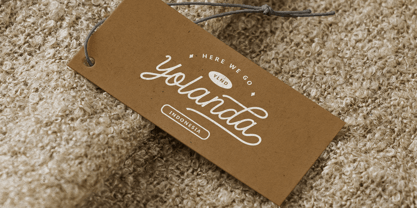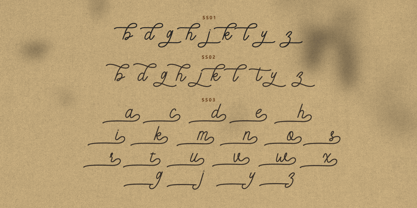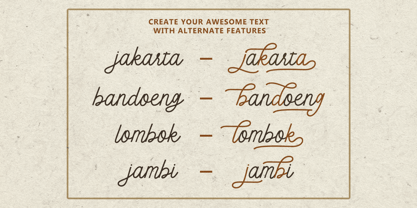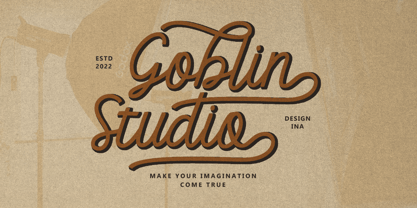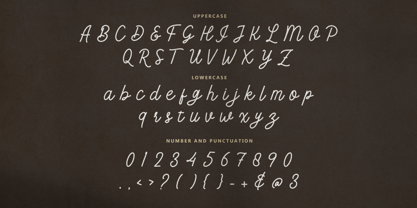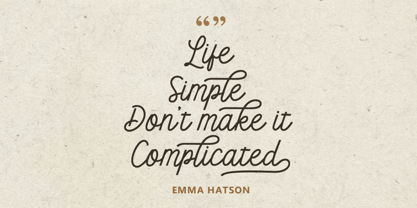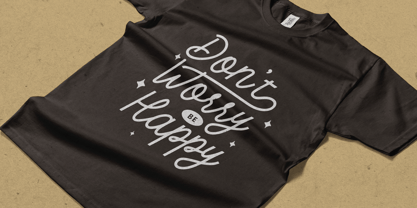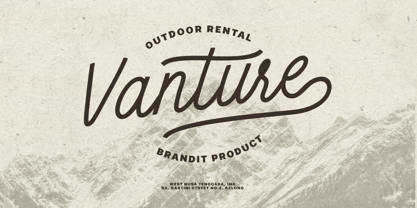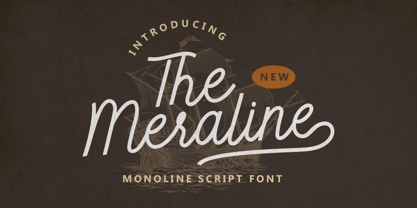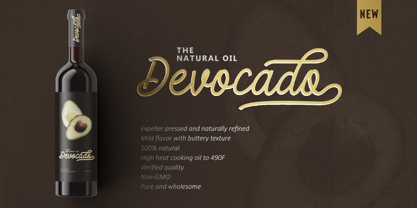
Meraline
The Meraline Font Family was designed by Sarid Ezra, Dzikrul Aulia and published by Bale Type. Meraline contains 1 styles. More about this family
Meraline is a monoline script that contains uppercase lowercase and also alternates each characters that will make your design more attractive and stunning. With hand lettering and outdoor feels, you can use this font for any purpose especially logotype. You also can use this font for quotes and apparel. This font also support multilingual.